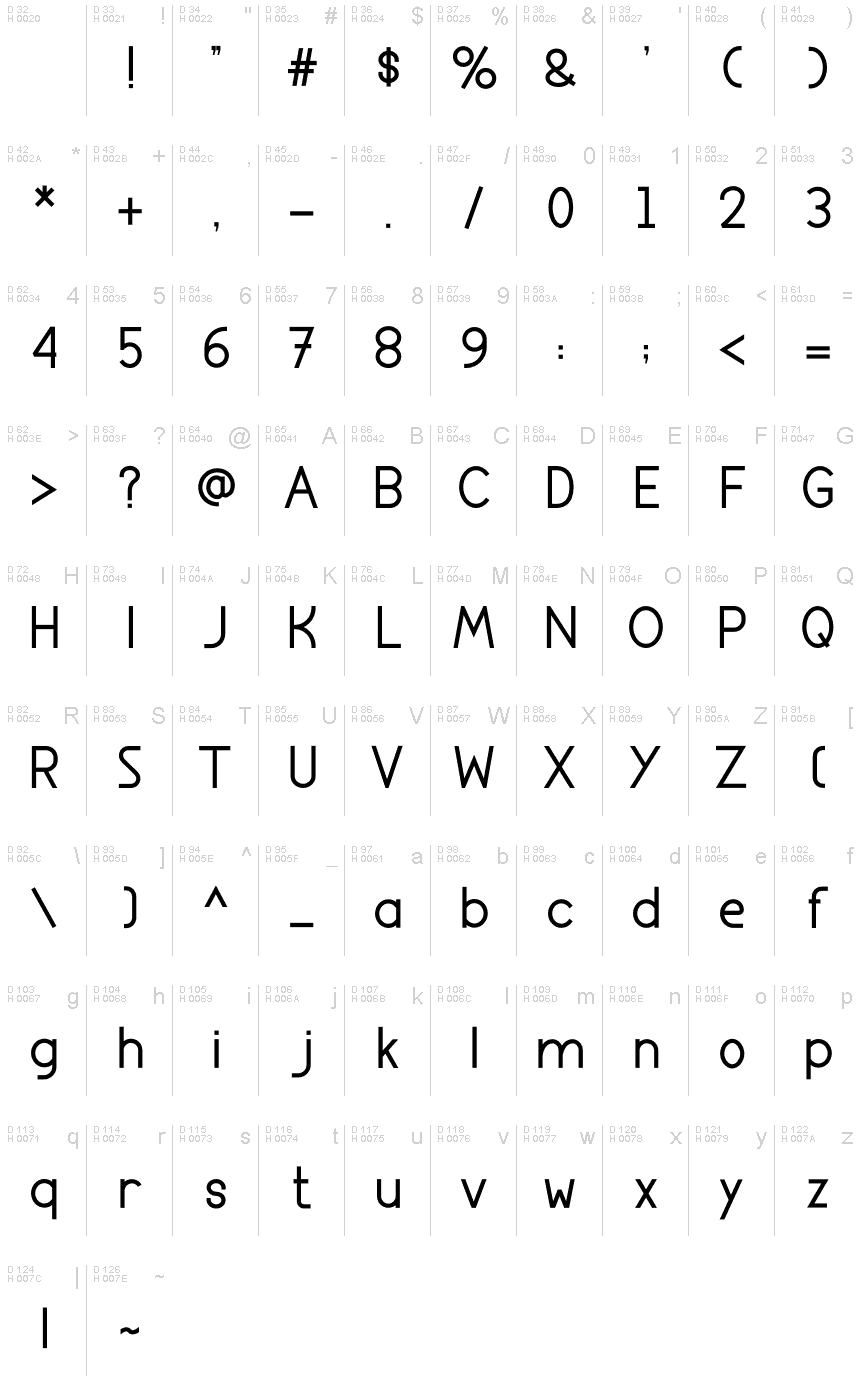
WORDS
Words, a captivating sans serif font created by Design Vector10, combines contemporary elegance with a touch of simplicity. Its semi-light weight and semi-condensed width make it ideal for various projects.
From modern website designs to sleek corporate presentations, Words effortlessly adds a sophisticated and professional touch. Capture attention with crisp headlines or create clean and readable body text for magazines or brochures.
With its versatile style and refined aesthetics, Words is the perfect choice for any project that requires a blend of modernity and clarity.